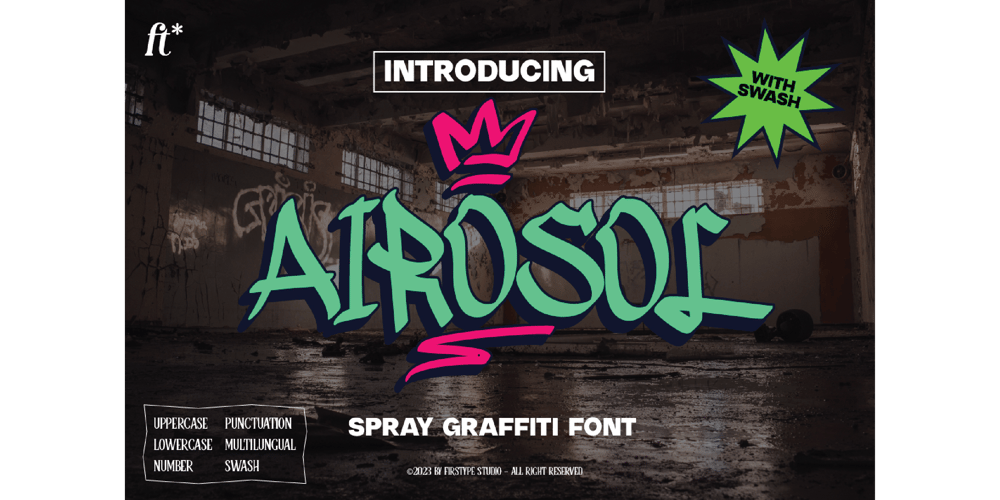
Airosol Spray Graffiti Font
Airosol Spray Graffiti Font Font Family was designed by Adrian Syauqi and published by Firstype Studio. Airosol Spray Graffiti Font contains 2 styles and family package options. We are introducing Airosol, is a spray graffiti font.It has a look of strength, character, and build. The shape has a few kinks here and there. I’d say that adds to its charm—and it does.It’s great for headlines and titles, but also very easy to read in sentence form.It’s perfect for branding and packaging, books, invitations, and anything else you want in a casual setting — without being too childish.Airosol fonts include;One heavy thick Uppercase + lowercase Number Punctuation & Symbols Western European character Central European character Southeast European character, Check out my other fonts— About Firstype StudioHello, that’s me or Adrian S, aka Syauqi owner of firstype studio. I design everything from custom typography for ad agencies to ready-to-buy fonts for designers (like you) to the occasional digital oil painting for TV and print.I’ve spent more than a few years in the design industry, from teaching Photoshop, web design, film promotion, and branding agencies to digital marketing—I think I’ve done most of the work. So I stopped doing the things I wasn’t doing—and started doing the things I wanted to do—more creative things.Thank you for viewingAdrian Syauqi